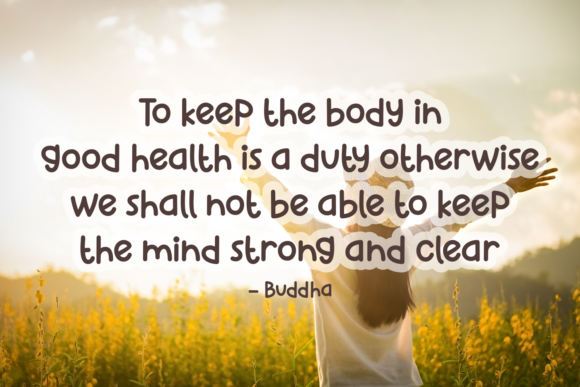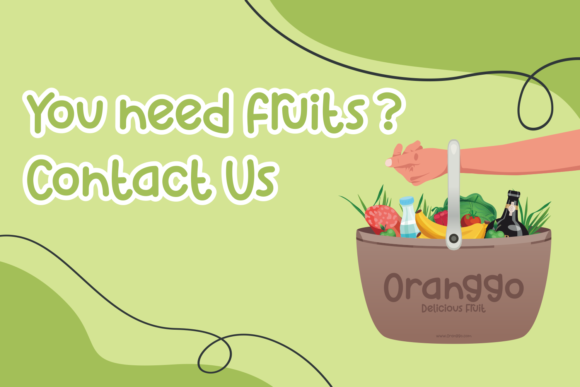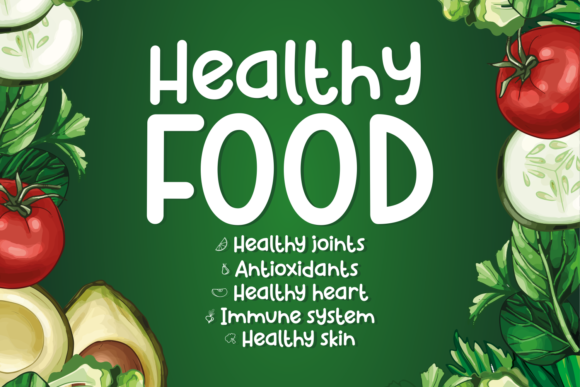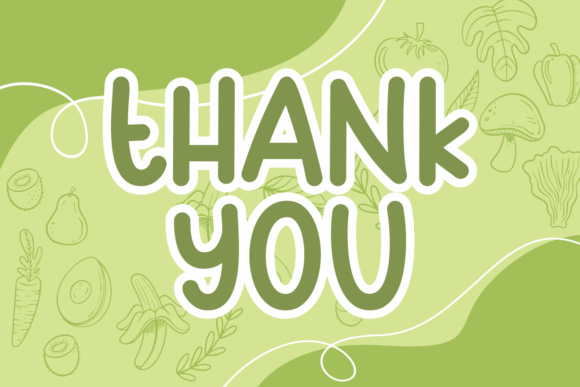
Fruchty Font: Unleash Your Creativity with this Playful Display Font
Are you a designer, crafter, or DIY enthusiast looking for a font that can add a touch of playfulness and whimsy to your projects? Look no further than Fruchty Font, a fun and incredibly fun display font that’s perfect for bringing your crafty ideas to life!
The Personality of Fruchty Font
Fruchty Font is a playful and bouncy font that’s designed to evoke a sense of fun and creativity. Every character in this font embodies a lively and energetic vibe that’s sure to capture the attention of your audience. Whether you’re working on a project for a children’s party, a craft tutorial, or a social media campaign, Fruchty Font is the perfect choice.
Key Features of Fruchty Font
- Playful and bouncy design: Fruchty Font features a unique and playful design that’s sure to add a touch of whimsy to your projects.
- Display font: Fruchty Font is a display font, making it perfect for headlines, titles, and other attention-grabbing elements.
- Easy to read: Despite its playful design, Fruchty Font is easy to read, making it perfect for use in a variety of projects.
- Versatile: Fruchty Font can be used in a variety of projects, from craft tutorials to social media campaigns.
Uses for Fruchty Font
Fruchty Font is a versatile font that can be used in a variety of projects, including:
- Craft tutorials: Add a touch of playfulness to your craft tutorials with Fruchty Font.
- Social media campaigns: Use Fruchty Font to add a playful touch to your social media campaigns.
- Children’s parties: Fruchty Font is perfect for creating fun and playful materials for children’s parties.
- DIY projects: Add a touch of whimsy to your DIY projects with Fruchty Font.
Tips for Using Fruchty Font
Here are a few tips for using Fruchty Font in your projects:
- Use it sparingly: Fruchty Font is a bold and playful font, so use it sparingly to add emphasis to your projects.
- Pair it with other fonts: Fruchty Font pairs well with other fonts, so don’t be afraid to experiment with different combinations.
- Experiment with colors: Fruchty Font looks great in a variety of colors, so experiment with different hues to find the perfect look for your project.
| Font Name | Fruchty Font |
| Author | Ari (7NTypes) |
Fruchty Font is a playful and incredibly fun display font that’s perfect for bringing your crafty ideas to life. With its bouncy design and easy-to-read style, Fruchty Font is a versatile font that can be used in a variety of projects. Whether you’re a designer, crafter, or DIY enthusiast, Fruchty Font is a great addition to your font collection.